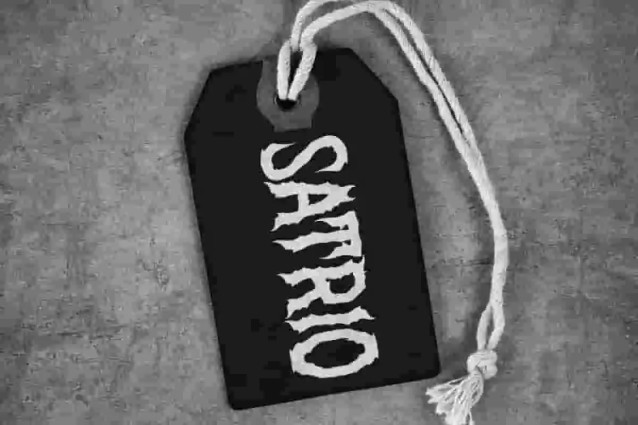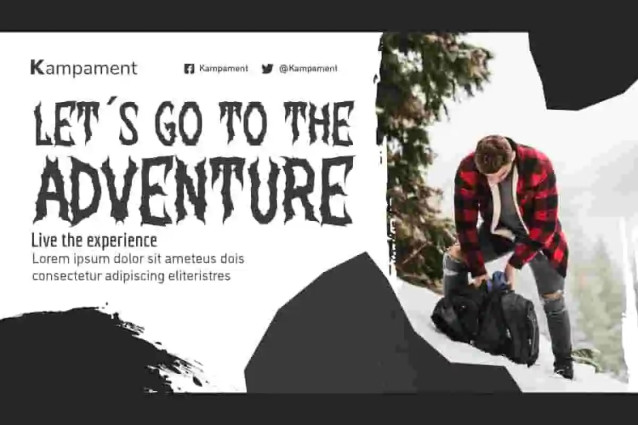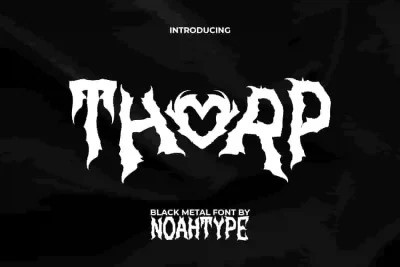
Thorp Black Metal Font
Thorp Black Metal Font is a dark hardcore rock Black Metal font by NoahType. This font has a unique appearance like flames that form the letters so that it can make it dominant in the design. It will be awesome for any designs, such as custom design, brand image, poster, label, invitation, cover, marketing material, menu, printing, product packaging, quotes, signage, website, and many more!
Thorp Font includes full set of ALL CAPS for Uppercase and Lowercase Basic Characters, Numerals, Punctuation, Symbol, and Ligature Character. This creative font will make your design cool and also a perfect choice for many industries, such as game, movie, comic, music, accessories, advertising, art, café, event or festival, fashion, printing, publishing, etc.